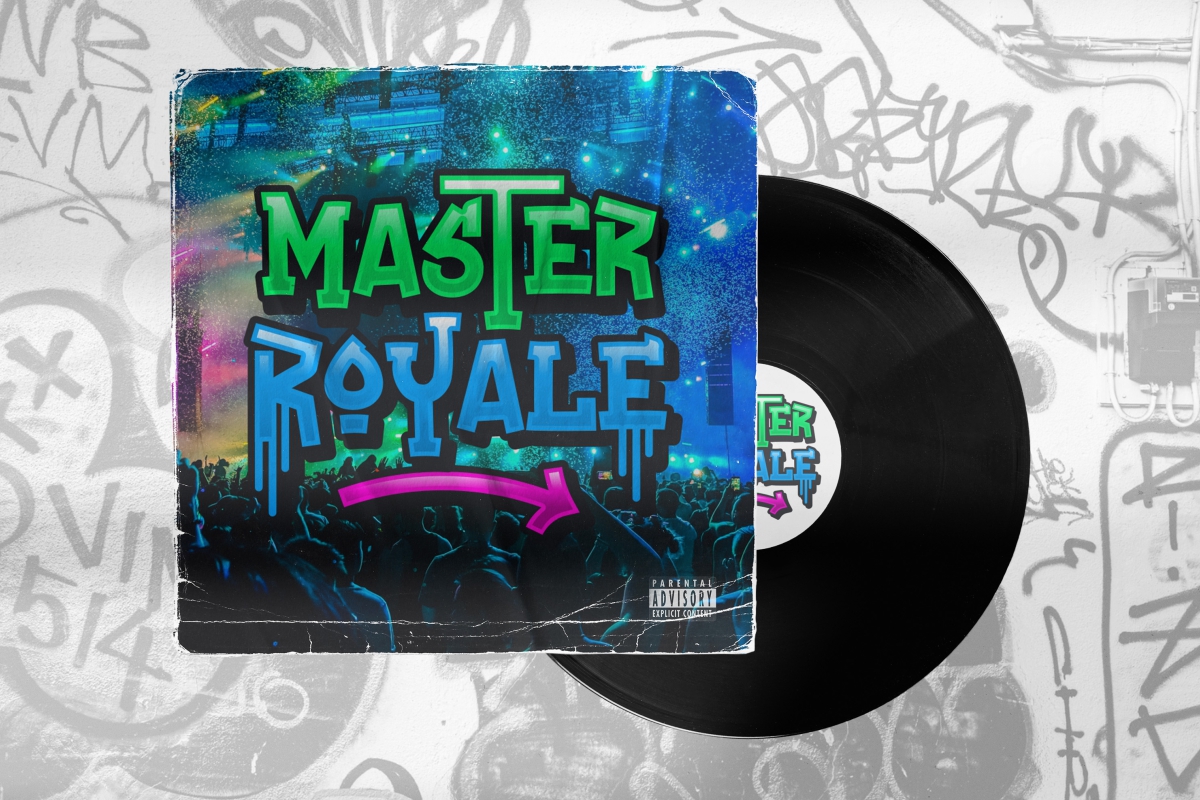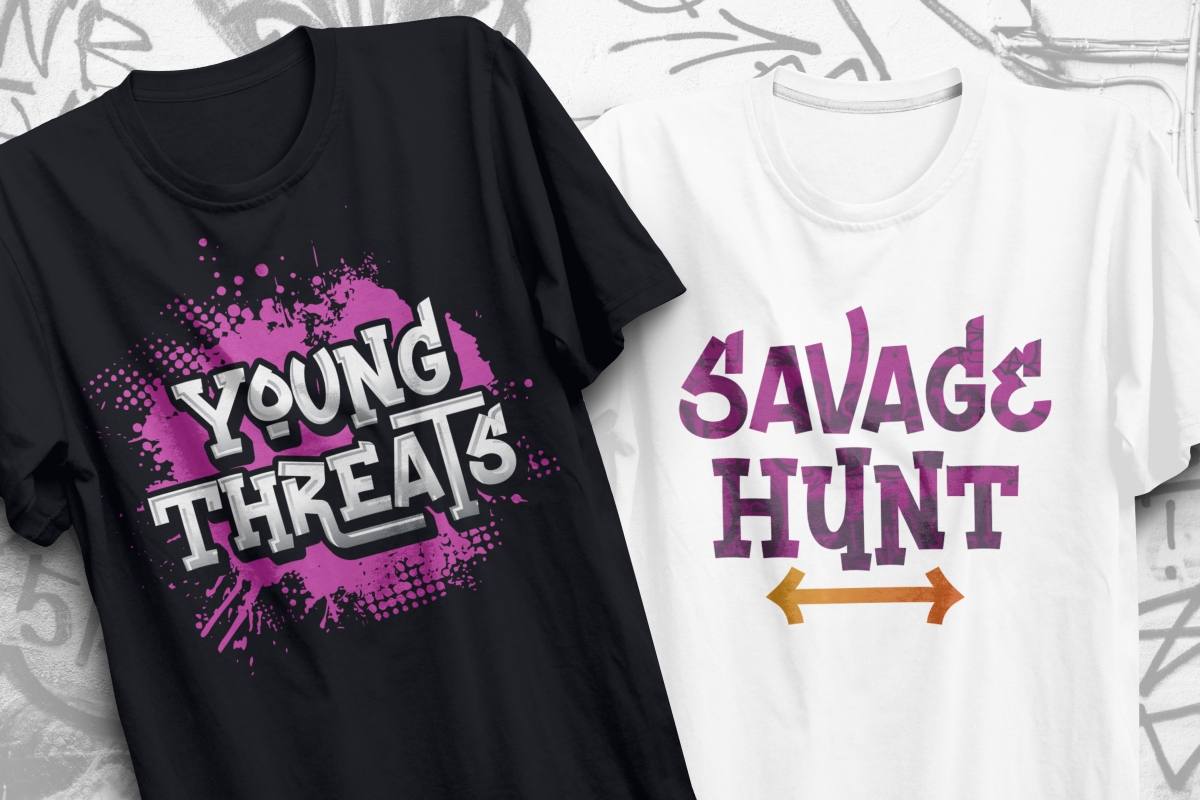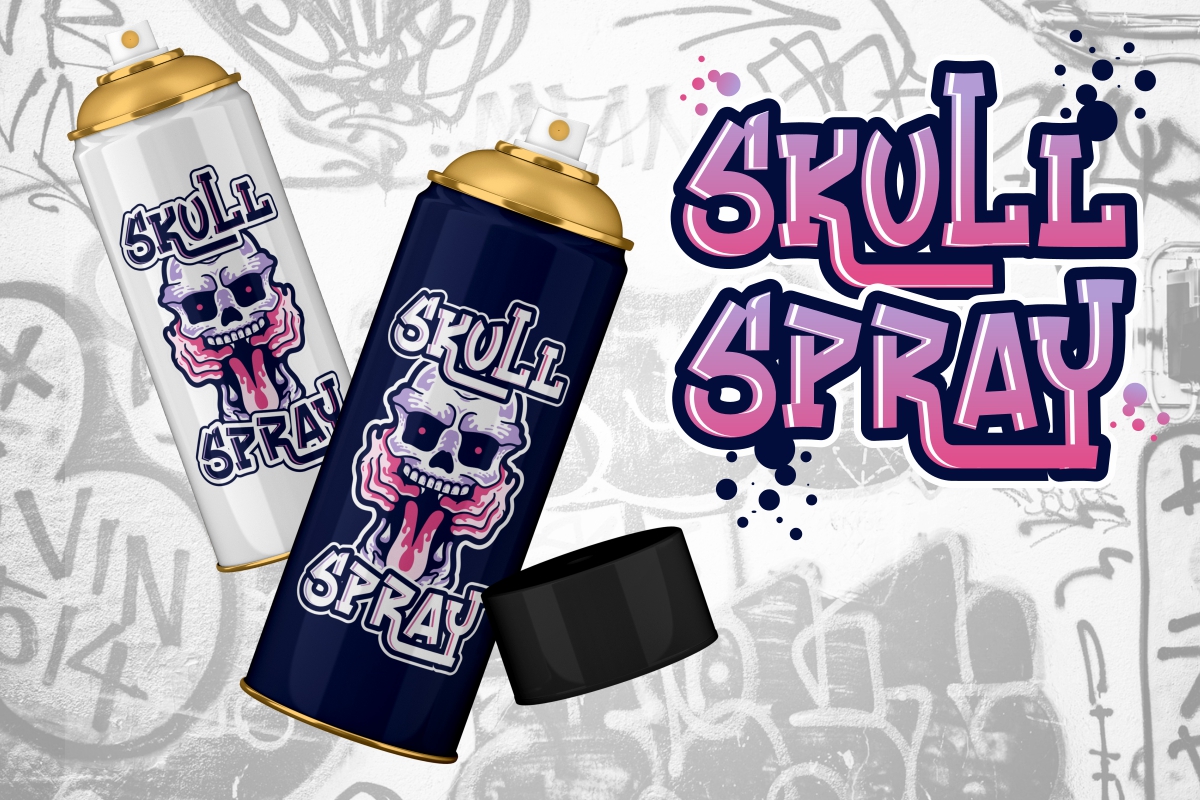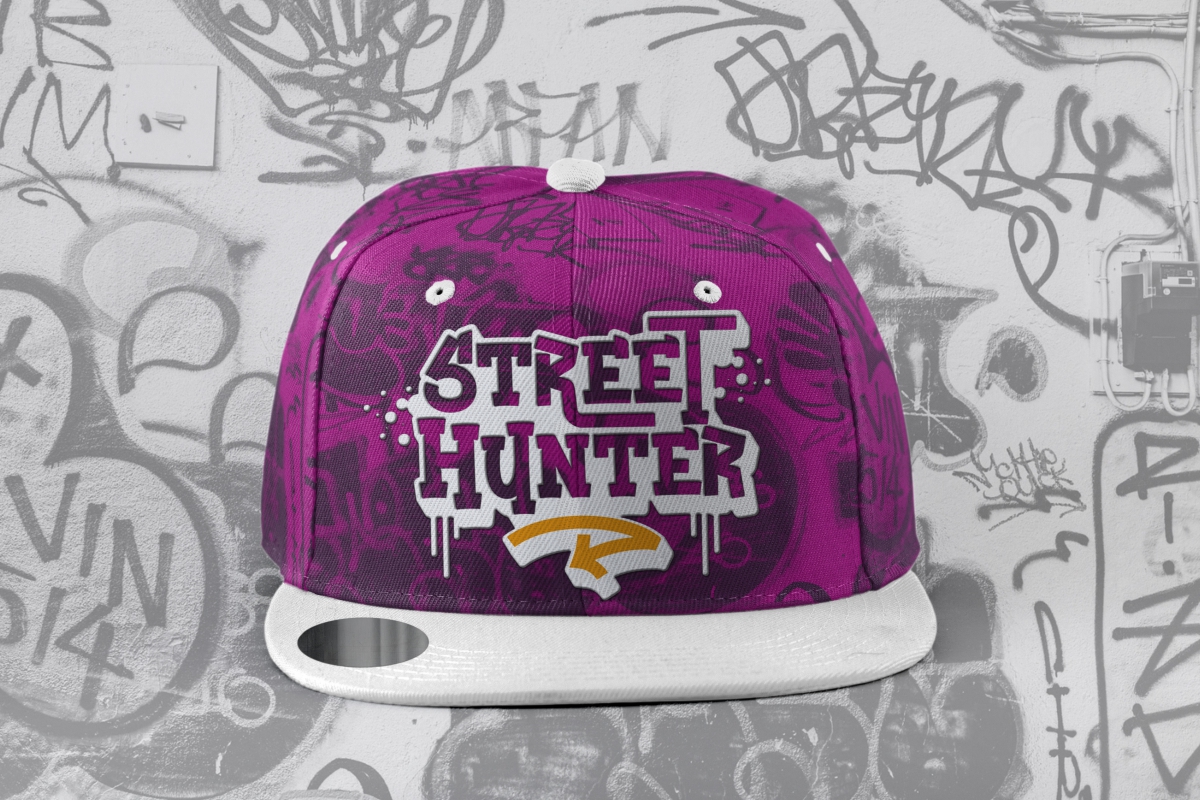
Right Stage Font
Right Stage Font is a Graffiti style font designed by NoahType, inspired from some my favorite graffiti artist excellent feel character set. Because this is pure from my real graffiti experiences around the streets and floor. Right Stage Font includes ALL CAPS Basic Characters to with the different size font, Numerals and Punctuation. Just mix the uppercase and lowercase then mix with the alternative glyphs. Graffiti ins from bloods skull spray which is make graffiti style fashionable. Another our have a unique which is character all ready amazing by your work spectacular.